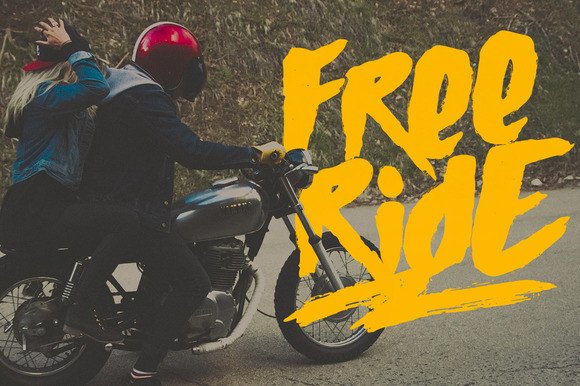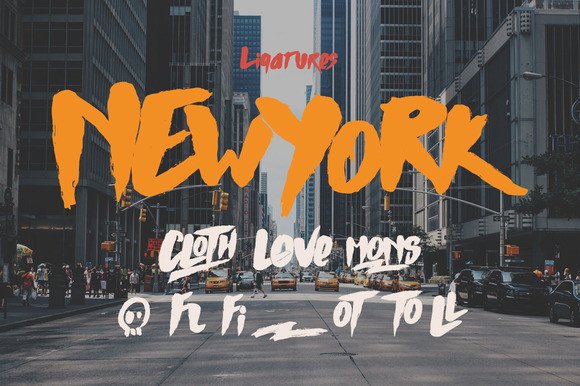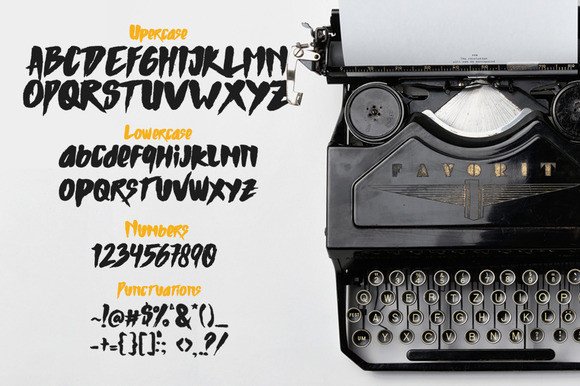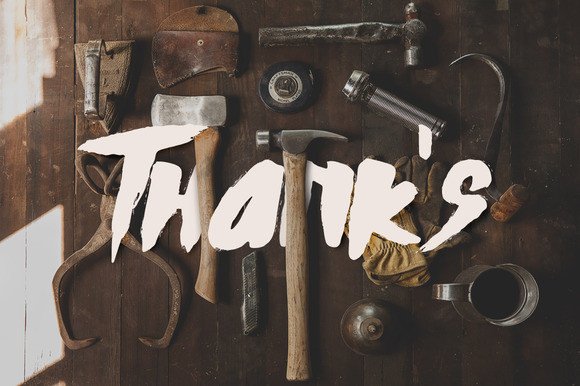
Introduction to Mons Font
As a designer, there’s nothing quite like the thrill of landing on the perfect font for your creative project. It’s that moment when everything clicks, and your vision starts to take shape. For me, it was the moment I stumbled upon the Mons Font – a high-impact, edgy brush font that’s been the game-changer in my design arsenal.
With its ripped display style and bold, eye-catching aesthetic, Mons Font is the ultimate design resource for anyone looking to make a statement. Whether you’re working on a logotype, a hip design, or anything in between, this font is sure to bring your project to life. And the best part? It’s a free download, available in high quality, making it an accessible addition to any designer’s toolkit.
As a valuable asset for designers, Mons Font offers unparalleled flexibility and versatility. Its transparent background makes it easy to layer and manipulate, while its edgy vibe adds a touch of sophistication to any design. Whether you’re working on a personal project or a client brief, Mons Font is the perfect addition to your design resource library.
Honest Review: Mons Font
Mons Font is a free download that caught my attention due to its unique and creative design. The high-quality typography offers a fresh perspective for any project, making it an excellent design resource.
- ⚠️ Limited font styles available for selection
Overall, I’m impressed with Mons Font’s potential for adding a creative touch to design projects. While it’s not without its limitations, the high-quality typography and versatile design make it a valuable resource for designers. If you’re looking for a unique font to enhance your creative project, Mons Font is definitely worth considering.
Tips for Getting the Most Out of Mons Font
To get the most out of Mons Font, use it in conjunction with a transparent background to create a high-quality design. You can also experiment with different font sizes and styles to add depth and visual interest to your project.
Mons Font is commonly used in creative projects such as logos, business cards, and infographics. It is also a popular choice for designers looking for a high-quality, free download font to use in their design resource.